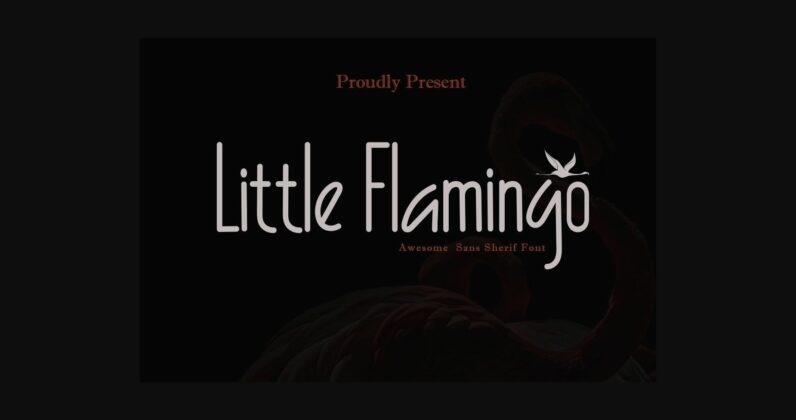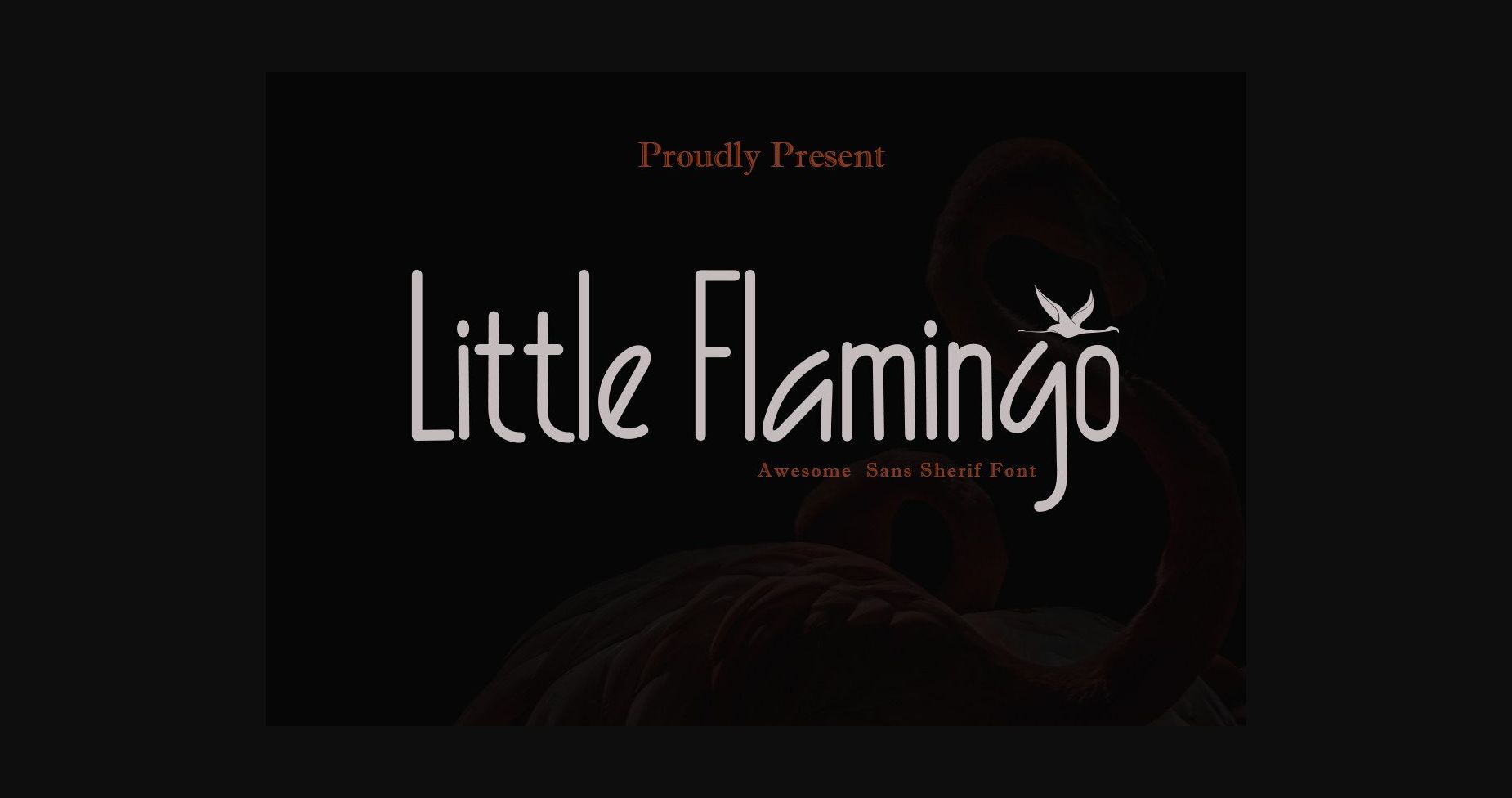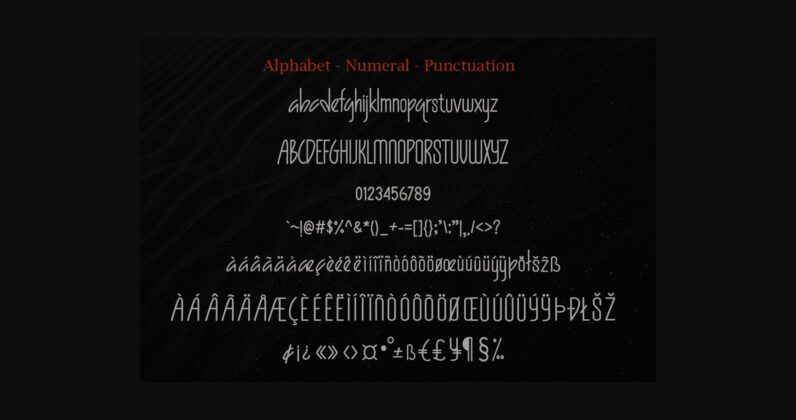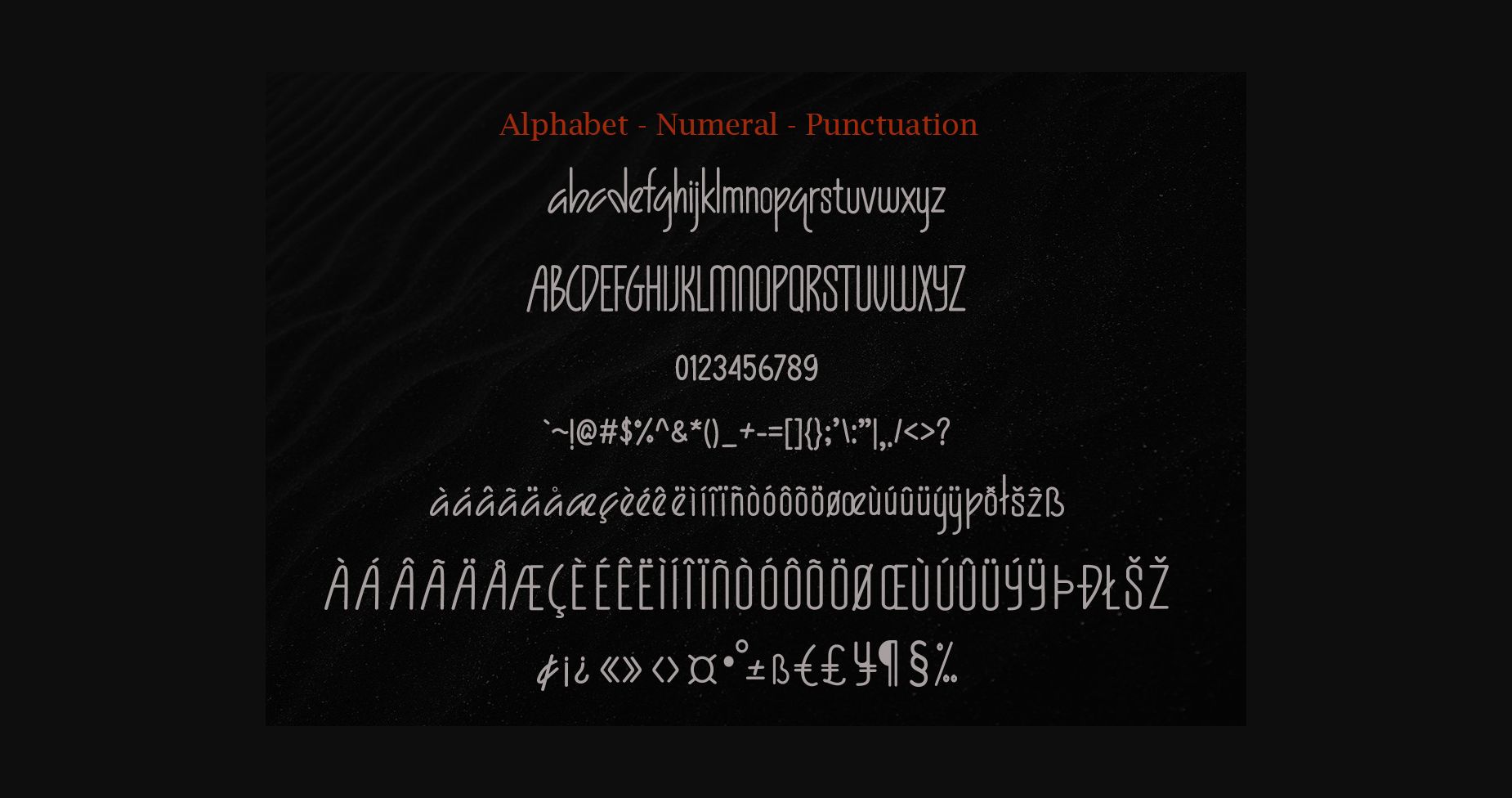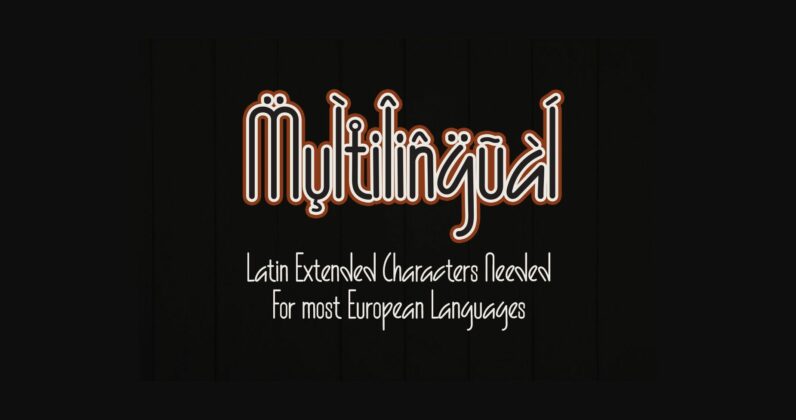
About Little Flamingo Font
Little Flamingo is a sleek and delicate sans serif font. Masterfully designed to become a true favorite, this font has the potential to bring each of your creative ideas to the highest level!